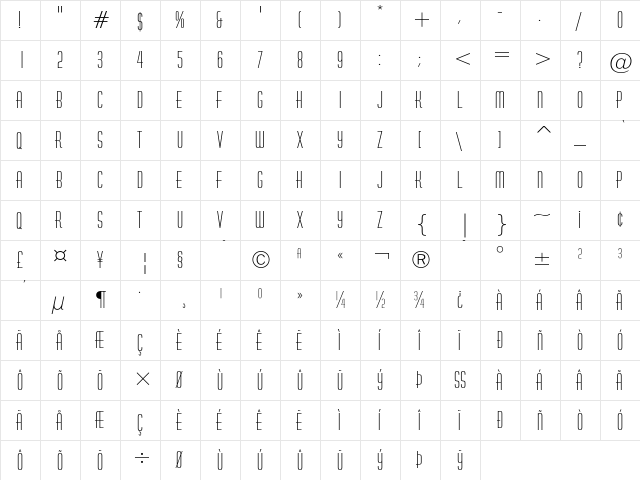
Huxley Vertical Regular
Design Context for Huxley Vertical Typeface
Huxley Vertical offers clean, dependable letterforms without strong stylistic allegiance, making it a practical choice for designers who need flexibility.